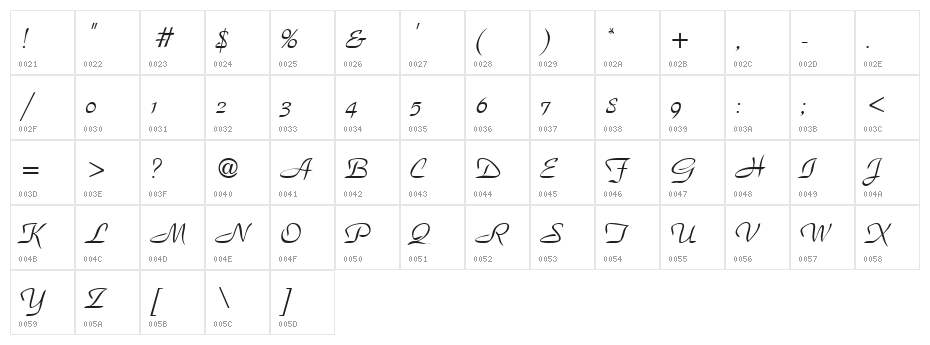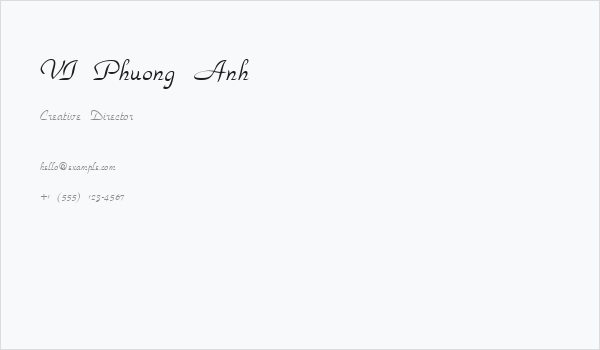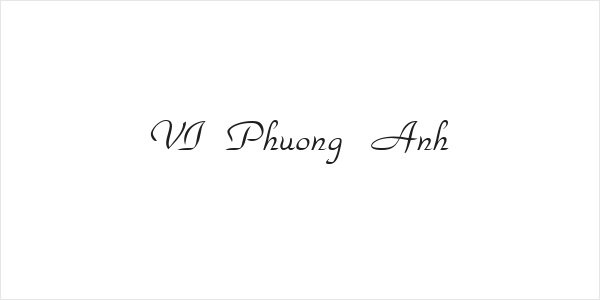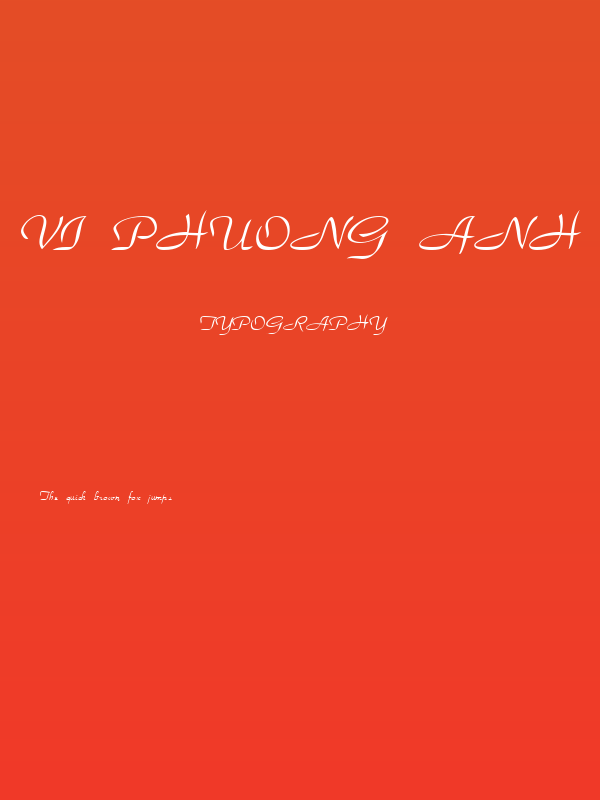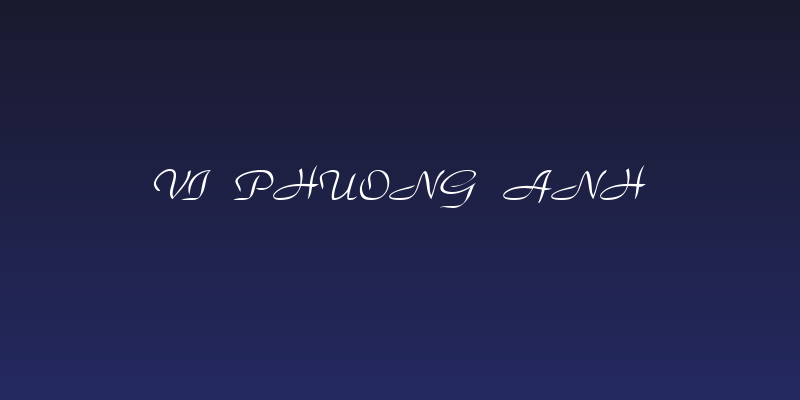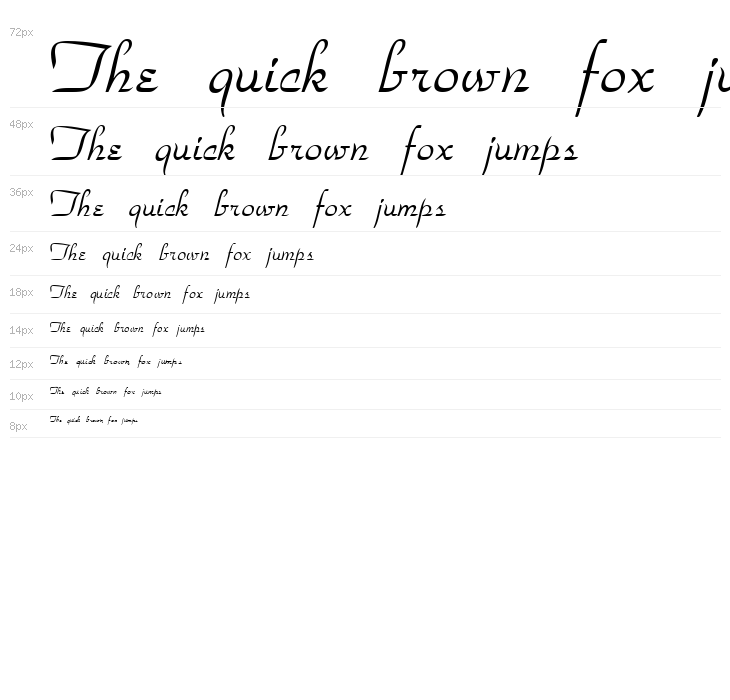
VI Phuong Anh Font
VI Phuong Anh Description
This elegant script font features flowing, cursive letterforms with a sophisticated and artistic flair. The uppercase letters are characterized by their sweeping curves and intricate loops, while the lowercase letters maintain a graceful continuity with subtle variations in stroke width. The numerals are stylishly integrated, complementing the overall aesthetic. Special characters are thoughtfully designed to match the font's ornate style, making it suitable for decorative purposes. The font's high contrast between thick and thin strokes enhances its readability and adds to its visual appeal.
| Overall Style | Elegant, Decorative |
| Proposed Projects | Ideal for wedding invitations, elegant branding, greeting cards, and decorative headlines. |